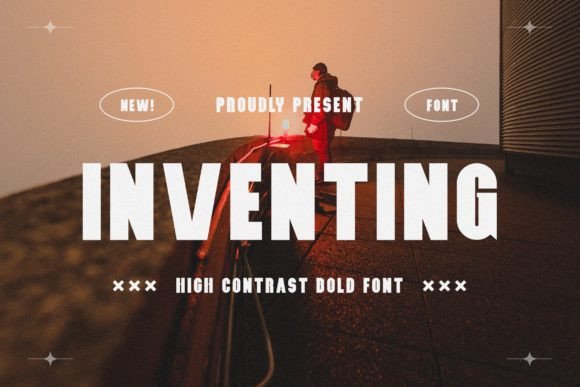
**Unleash Your Inner Game Master with Inventing: The Ultimate Font for Gamers**
Step into the realm of pixels and adventure with Inventing, the bold and captivating display font designed to ignite your gaming experiences. Crafted by the renowned TypeFactory, this high-contrast masterpiece exudes strength and precision, perfectly capturing the intensity and determination of every gamer's journey.
With Inventing, your logos will demand attention, your branding will leave a lasting impression, and your ads will become irresistible. The possibilities are endless as you create eye-catching blog posts, stunning invitations, and heartfelt greeting cards. Let your imagination run wild as you design planners that inspire action, photo albums that preserve epic moments, and decorations that transform your surroundings into a gamer's paradise.
But it's not just about aesthetics—Inventing is a font that empowers you to communicate your passion. Its strong and clean shapes convey the unwavering resolve of a true gamer, whether you're conquering virtual worlds or facing real-world challenges.
And the best part? Inventing is PUA encoded, giving you effortless access to an array of glyphs and ligatures. With just a few clicks, you can unleash a world of creative possibilities, crafting headlines that dance with style and paragraphs that flow with elegance.
So why settle for ordinary fonts when you can wield the power of Inventing? Join the ranks of gaming enthusiasts and creators who are embracing the ultimate weapon for expressing their passion and conquering every challenge that comes their way. Let Inventing be your font of choice and experience the thrill of victory like never before!